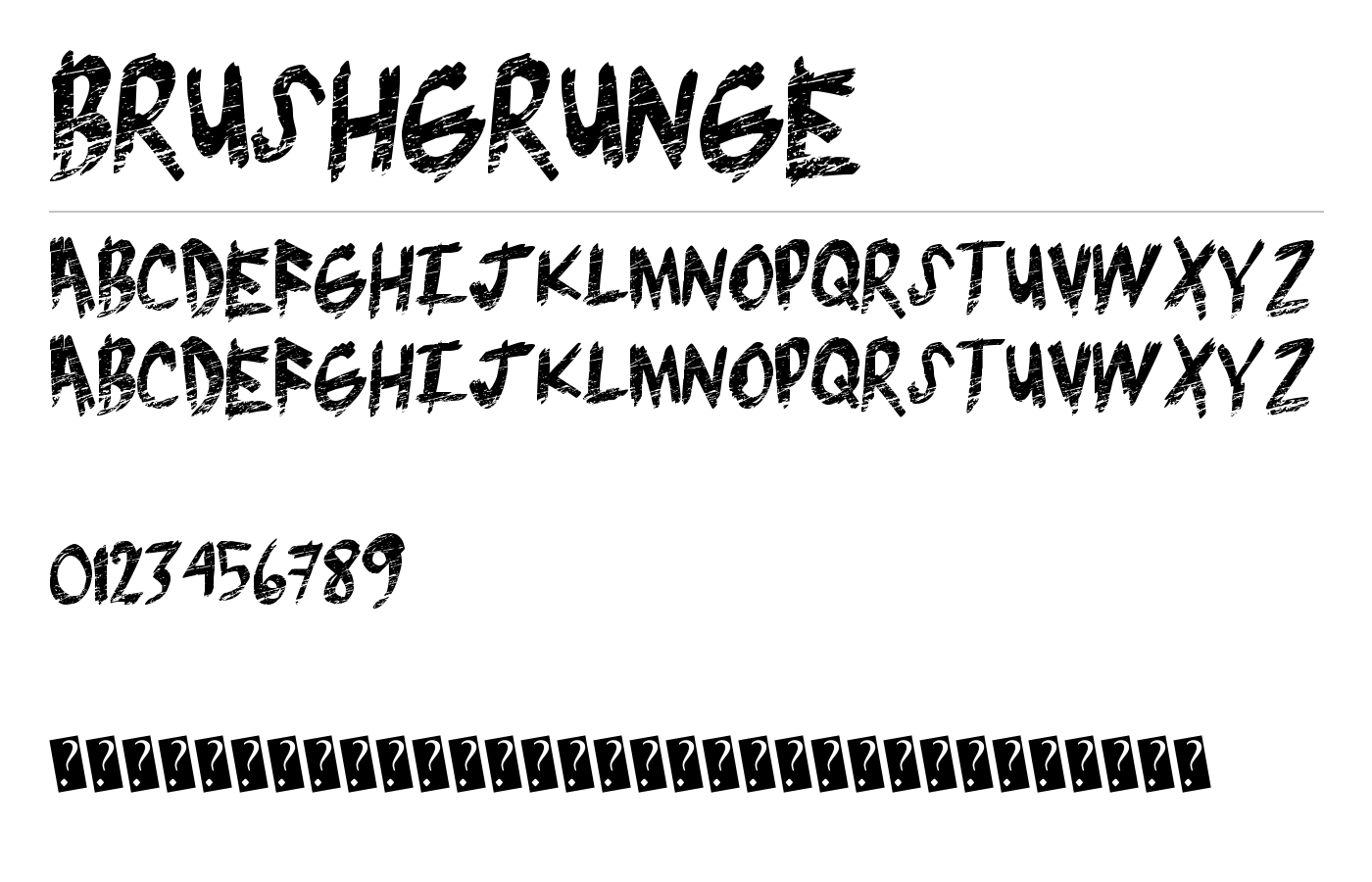
BrushGrunge is a bold, textured sans serif font that mimics the rough, uneven strokes of a worn brush, giving it a gritty and rebellious character. With its strong, slightly condensed letterforms and high contrast areas of distressed shading, it conveys an edgy, hand-crafted feel perfect for creative, urban, or alternative designs. This font works best in headlines, posters, and branding that aim to capture attention with a raw, energetic vibe.
BrushGrunge Font
About BrushGrunge Font
| Font family | BrushGrunge Font |
| Designer | Max Infeld |